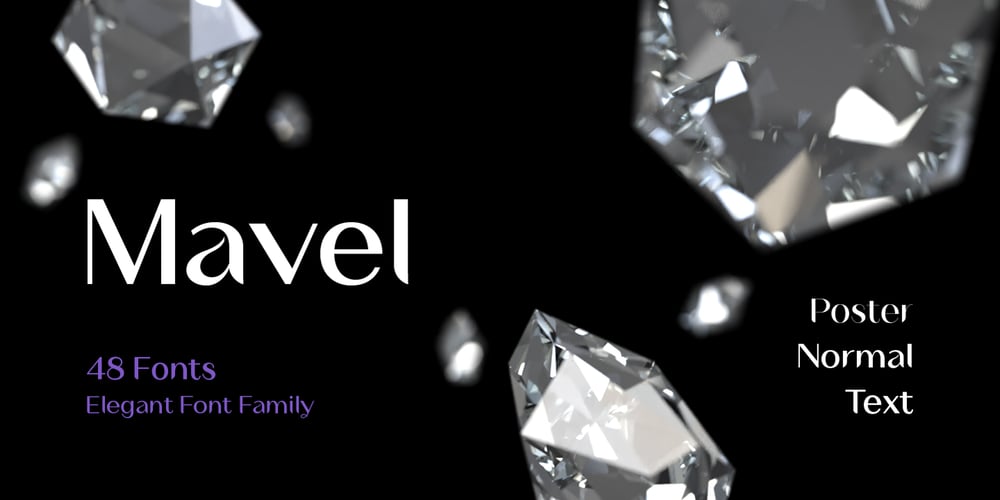
Mavel Font Family was designed by Serdar Öztürk and published by Serdar Ozturk. Mavel contains 48 styles and family package options. Mavel is a large font family where you can find simplicity and elegance together. With this font, you can create impressive presentations and increase their contrast by using sub-family members. You can create unique looking layouts and banners. The luxury logo will look great for your work.Apart from its wide family, this aesthetic font offers you alternative characters, ligatures and many more usage features.